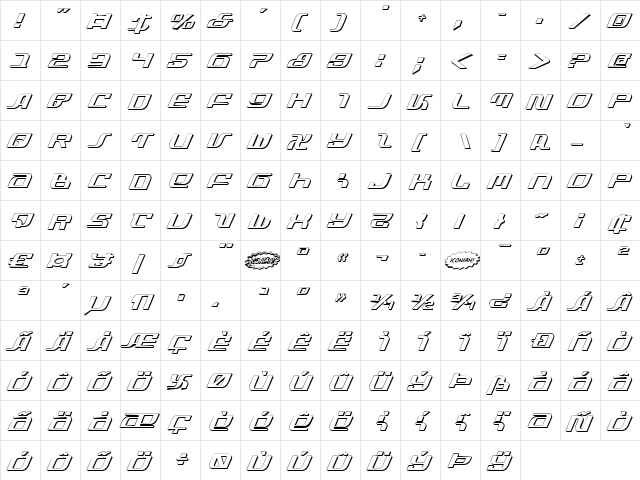
Infinity Formula Shadow Ital Shadow Ital
Design Context for Infinity Formula Shadow Ital Typeface
Infinity Formula Shadow Ital brings ornamental detail and strong personality to headlines and identities, where visual impact matters more than quiet functionality.
Font Pairing: Pair with a clean neutral sans-serif for body copy to let Infinity Formula Shadow Ital's character lead without overwhelming the composition.
Pro Tip: Treat Infinity Formula Shadow Ital as the centrepiece of your typographic hierarchy. One strong heading set in a decorative face can carry an entire layout.